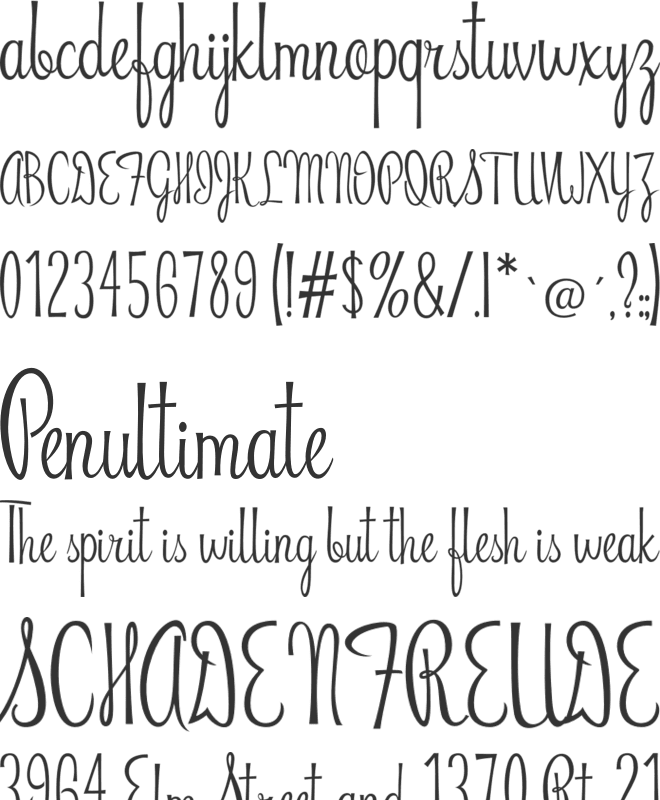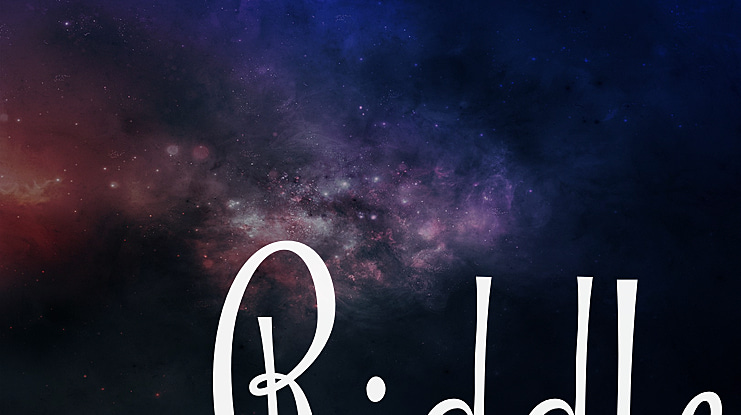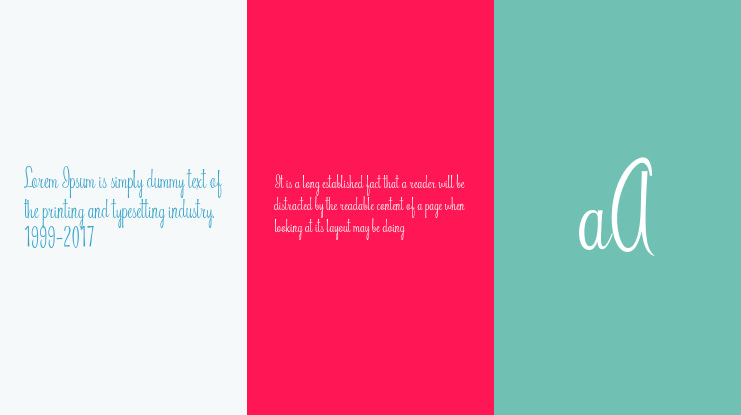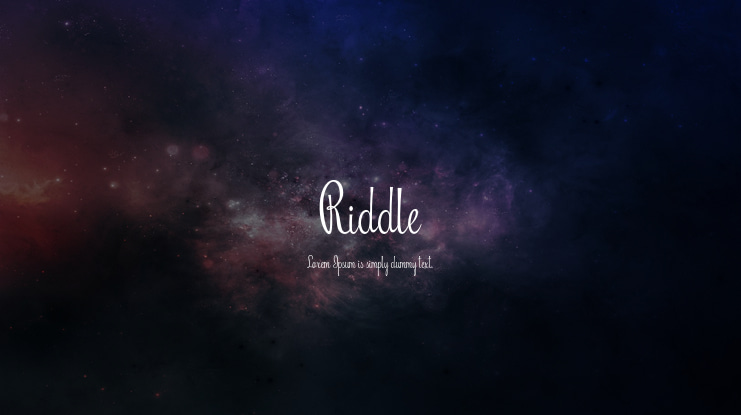
Riddle Font Family
Mario Arturo
Inspired by the cover of Frank Sinatra and Nelson Riddle LP "Only the Lonely". Harold Lohner from HAROLDFONTS gave me a hand on this one about back in 2000. Thank Harold. 13 years later, it finally has uppercases, numbers and punctuations. This font is free for non-commercial use and donationware for commercial use. Make a donation through PayPal my account there is: